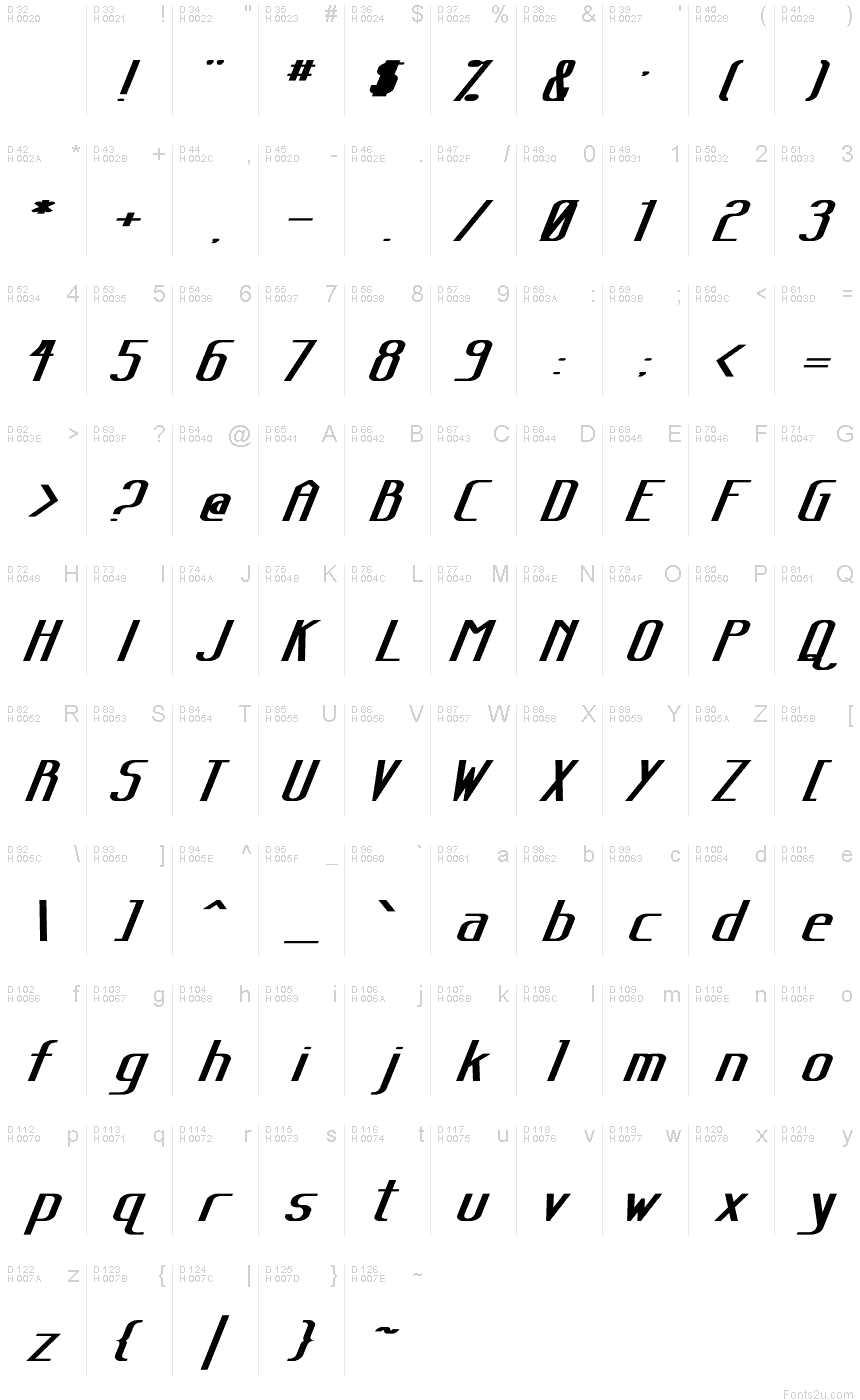
Sanity Wide Bold Italic
Sanity Wide Bold Italic, by Dan Redding of B/W Fontworks, is a free modern display font with a slick late-90s editorial attitude. The letters lean hard and move fast, mixing smooth, stretched curves with sharp cutoffs and a slightly futuristic snap; that sweeping S and the long, low rhythm across the word give the whole alphabet a poised, aerodynamic feel.
It fits magazine mastheads, music packaging, nightclub flyers, fashion promos, and title cards where a short line needs motion more than ornament. As a free font, it also makes sense for logos, cover lines, and opening initials, especially when you want a sleek italic voice that feels stylized without turning decorative.